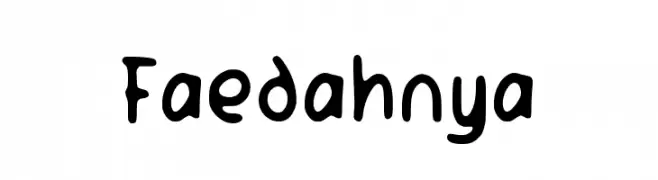
A bold, handwritten font with a playful and artistic style.
A bold, playful font with rounded, bubbly characters ideal for fun and retro designs.
A playful, hand-drawn font with rounded, bold characters.
A bold, hand-drawn font with an energetic and playful style.